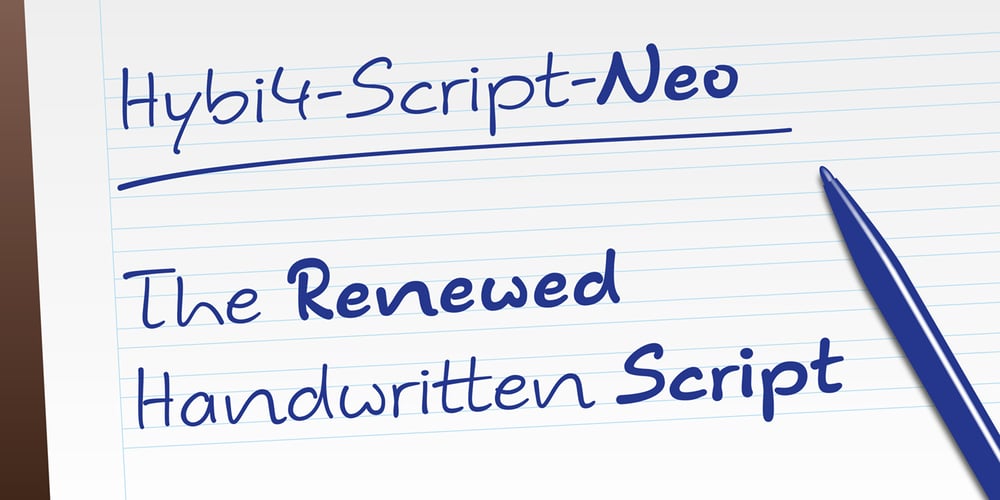
Hybi4 Script Neo
Hybi4 Script Neo font
Hybi4 Script Neo Font Family was designed by Peter Hübner and published by Hybi-Types. Hybi4 Script Neo contains 2 styles and family package options. This typically handwritten script fonts are based on my own handwriting.First release of the Hybi4-Script was back in 1999.Now it’s renewed and completed with many more special characters and a bold style.